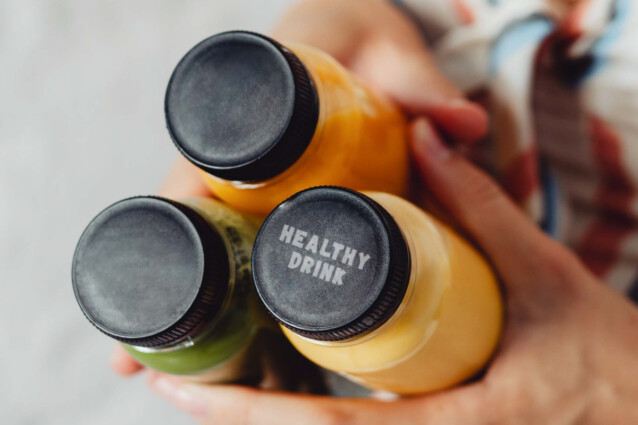
Surprised Monkey Font is a playful bold cartoon font family with three style options: Regular, Italic, and Bold. It will be interesting and be able to make your business feel good, such as accessories, café, cartoon, cheerful camp, child food, children clothes, comic, film, interior design, juice and beverage brands, kids crafts, printing, publishing, school, social media content, writer, and other fun related things.